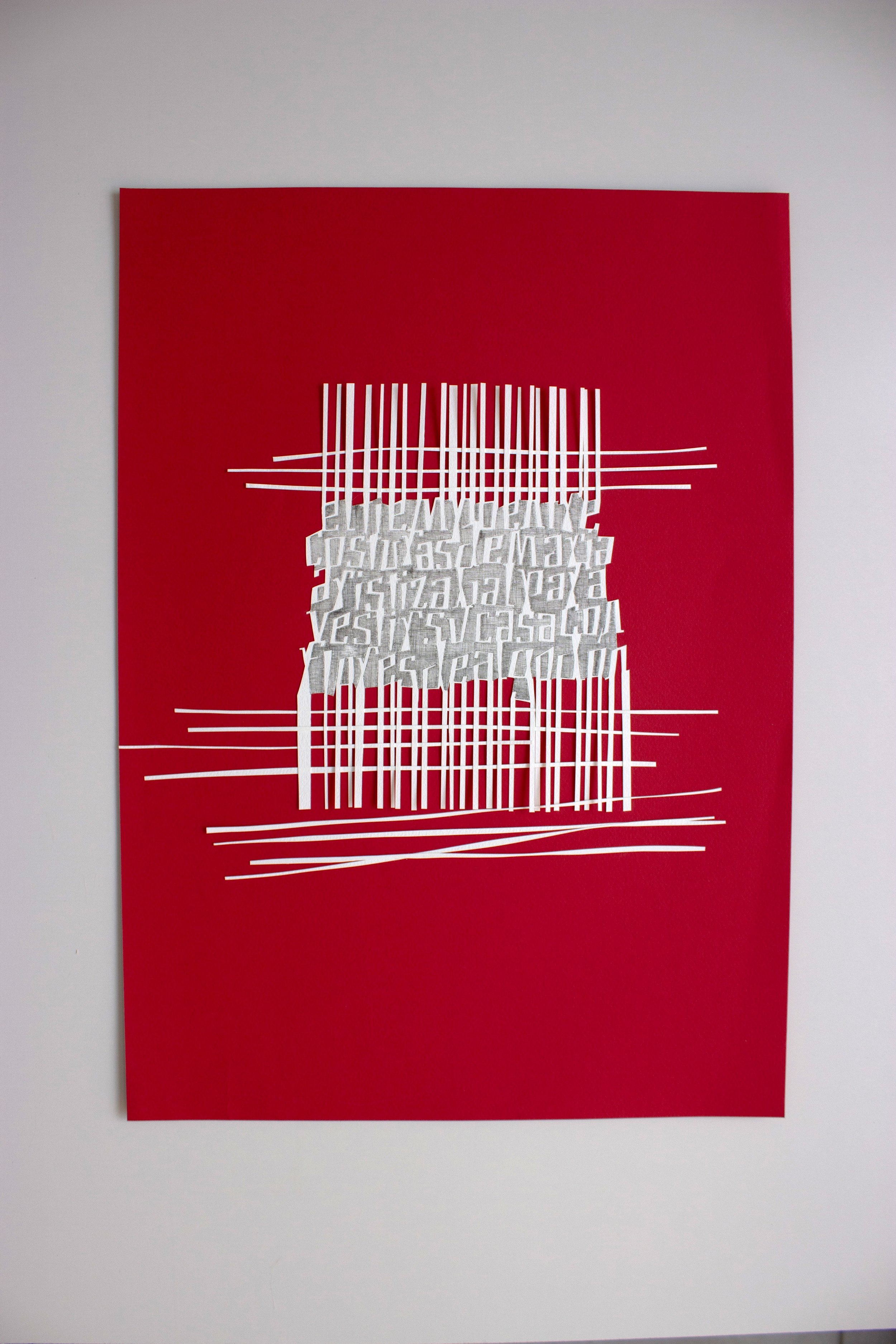
ANA SANABRIA | El tiempo entre costuras I (The Time Between Stitches I)
ARTIST | Ana Sanabria
BASED IN | Medellín, Colombia
TITLE | El tiempo entre costuras I (The Time Between Stitches I)
MEDIUM | Canson paper, textured paper, pigment liner
Inspired by a bedcover crocheted by her grandmother, this work treats paper as thread—knitting letters into a lace-like structure. The hatched background mimics the woven texture of the sheets beneath, merging memory, tactility, and familial lineage.
Ana Sanabria is a freelance lettering artist based in Medellín, Colombia. In 2017, she made a life-changing decision to pursue lettering more seriously, beginning formal training under the mentorship of Lieve Cornil. Her passion lies in making writing visible beyond the words themselves—treating letters as visual forms with expressive potential. Working across paper, digital media, and wood, Ana explores a wide range of letter-based practices, from handwriting, logo design, and branding to carving decorative wood pieces. For her, each project is an opportunity to bring words to life through craft, materials, and experimentation